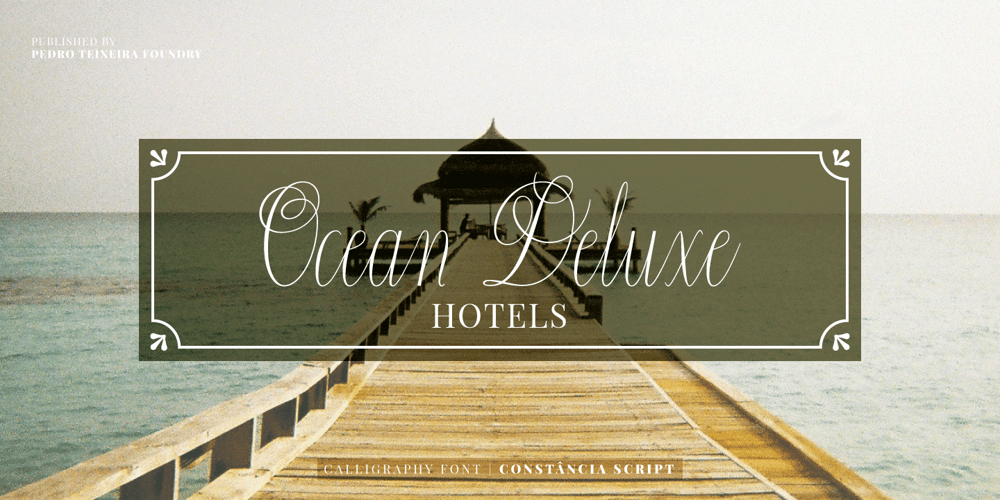
Constância Script
Constância Script font
Constância Script Font Family was designed by Pedro Teixeira and published by Pedro Teixeira. Constância Script contains 2 styles and family package options. Constância Script, classic and elegant calligraphy. This unique, stylish and legible script is handy for logo, poster, headlines, invitations, cards and all display needs.